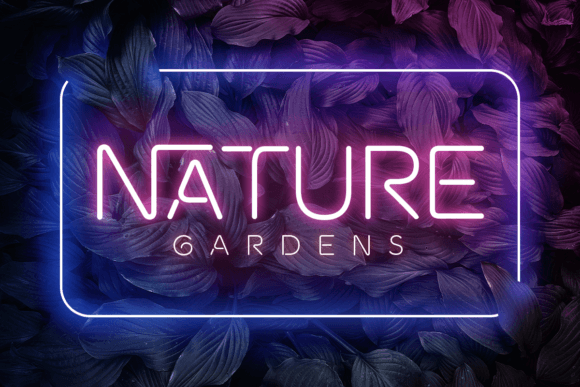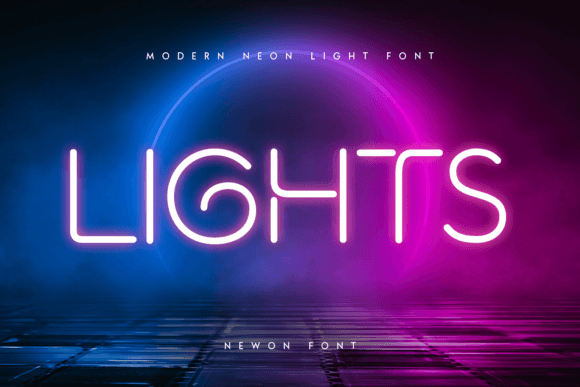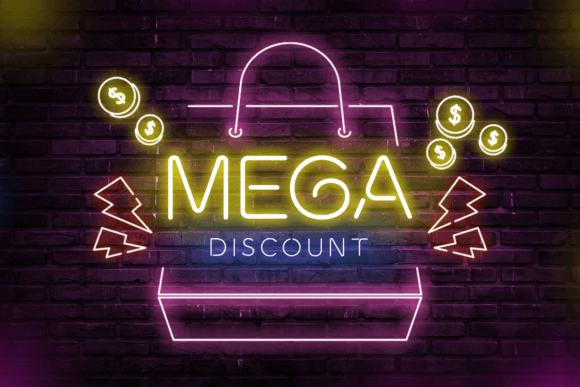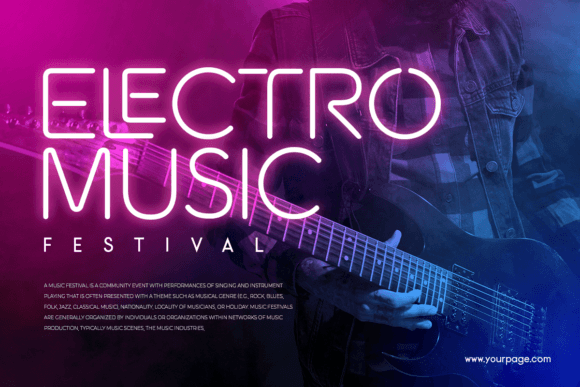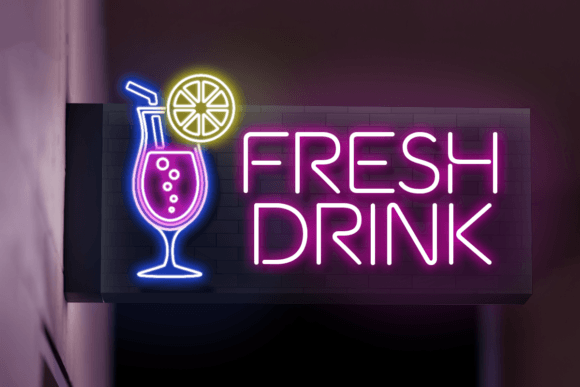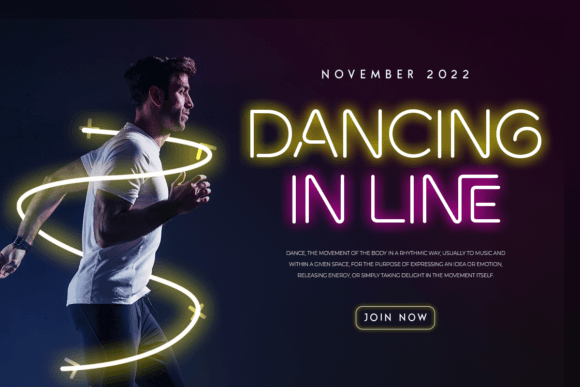
Introduction to Newon Font
Have you ever found yourself in the midst of a creative project, pouring your heart and soul into every detail, only to be held back by the perfect font? You know, the one that would elevate your design from good to great? For many of us, this is a common struggle. But what if we told you that there’s a solution just around the corner? Enter the Newon Font, a game-changing sans serif font that’s about to revolutionize the way you approach your design projects.
About Newon Font
Key Features of Newon Font
- High-quality, unique design for creative projects, perfect as a design resource.
- Features a transparent background, allowing for seamless integration into any design.
- Perfect for use in logos, graphics, and typography-based designs, thanks to its creative and modern style.
Honest Review: Newon Font
I recently had the chance to work with the Newon Font, and I must say it’s been a game-changer for my creative projects. As a designer, I’m always on the lookout for high-quality design resources that can elevate my work, and the Newon Font definitely delivers.
Here are some things that work well with the Newon Font:
- ✨ A wide range of styles and weights to choose from, making it perfect for various design projects
- ✨ A transparent background option, which is a must-have for designers who work with images and graphics
- ⚠️ Limited support for customization, which may not be ideal for designers who want to make significant changes to the font
Newon Font
The Newon Font is a versatile and high-quality design resource that can elevate your creative project to the next level. This free download offers a unique and stylish aesthetic that can be used in a variety of applications.
Getting the Most Out of Newon Font
To get the most out of the Newon Font, be sure to use it with a transparent background to achieve a clean and modern look. You can also experiment with different font sizes and colors to create a unique and eye-catching design. Additionally, use the Newon Font in combination with other design elements, such as images and graphics, to create a cohesive and engaging visual identity.
The Newon Font is ideal for use in creative projects, such as logos, brochures, and business cards. Its high-quality design and versatile aesthetic make it a great choice for a variety of industries, including fashion, technology, and healthcare. With its free download and transparent background, the Newon Font is a valuable design resource that can help you achieve your design goals.